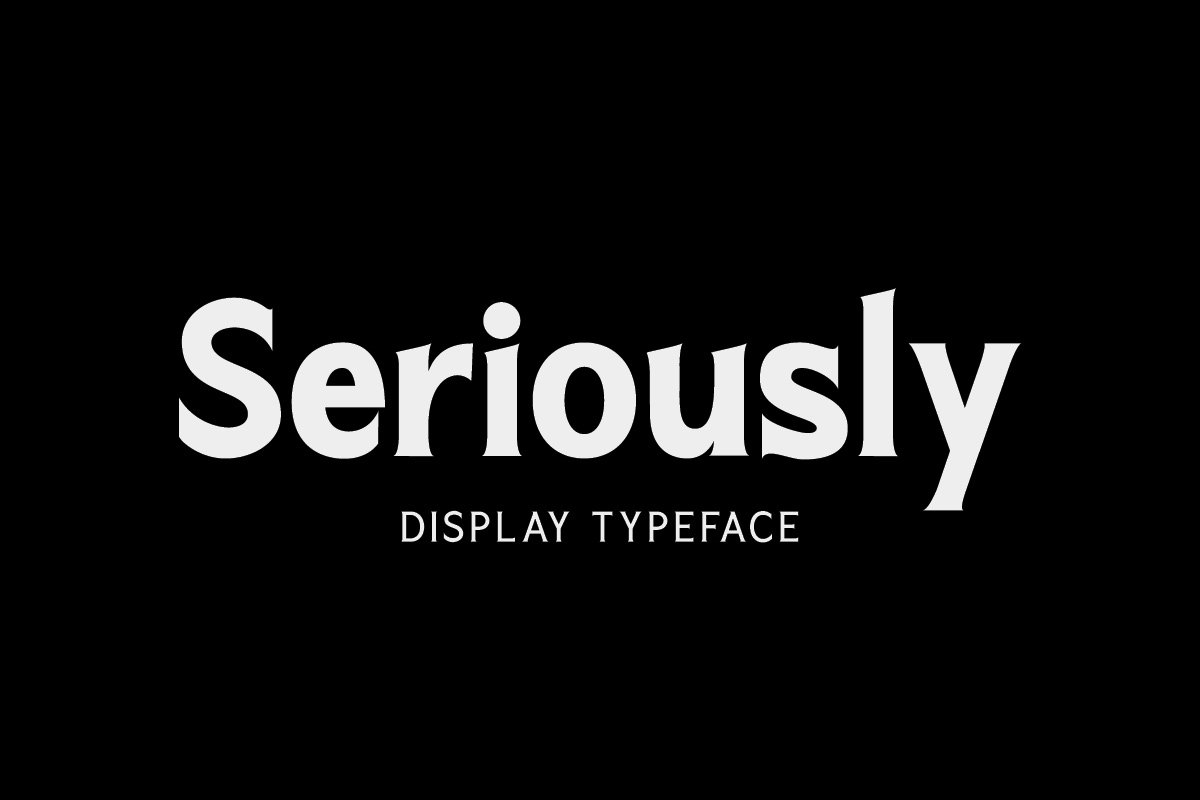
Seriously Font
Seriously Font is perfect for formal business documentation, professional legal materials, serious corporate presentations, authoritative news publications, important academic research papers, formal government communications, serious financial reports, critical healthcare documentation, professional consulting materials, and executive-level correspondence. This commanding typeface brings unwavering authority to serious business proposals, formal institutional branding, professional certification materials, important policy documents, and critical communication systems.
Seriously Font is exciting because it embodies unwavering authority and professional gravitas through its meticulously structured letterforms that command immediate respect and attention. The font features strong, decisive characters with authoritative proportions and serious design elements that convey importance, credibility, and professional weight. Its distinctive construction demonstrates institutional reliability with carefully balanced elements that create an immediate sense of trustworthiness and serious professional competence. The font's authoritative presence and serious professionalism make it perfect for organizations seeking to communicate critical importance, institutional authority, and uncompromising professional standards in their visual communications.
The Seriously Font family includes various authoritative styles: Light, Regular, Medium, Bold, Black, Italic, Condensed, Extended, Display, Corporate, Institutional, and Executive variants. Each family member maintains the core serious DNA while offering different levels of authority for diverse formal design applications. The comprehensive font collection ensures consistent professional branding across serious business communications, formal institutional materials, and authoritative documentation systems.
Whether you're creating serious corporate brand identities, designing formal business materials, developing authoritative website headers, or crafting critical communication campaigns, Seriously Font delivers exceptional professional authority and institutional credibility. The font's distinctive serious personality excels in formal logos, professional documentation, authoritative applications, and institutional projects where serious credibility and professional gravitas are essential.